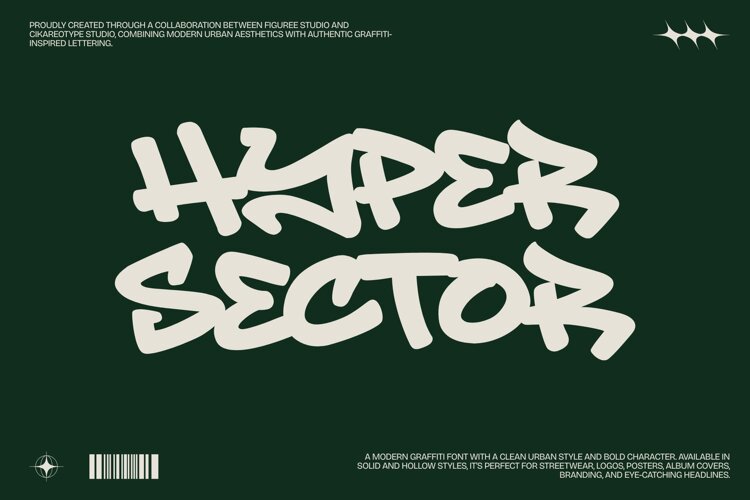
Hyper Sector is a modern graffiti display font created with a bold urban attitude and expressive hand-drawn lettering. Featuring smooth, connected strokes, dynamic curves, and an authentic street-art character, this typeface brings a confident and contemporary energy to your designs.
Inspired by modern graffiti, street culture, streetwear, underground art, and urban branding, Hyper Sector is designed to make headlines and visual identities instantly stand out. Its fluid letterforms create a strong handcrafted appearance while maintaining a clean enough structure for versatile graphic design applications.
Hyper Sector comes with Solid and Hollow styles, giving you creative flexibility when building logos, layered typography, posters, apparel graphics, album artwork, and promotional designs. Combine the two styles to create contrast, depth, and unique typographic compositions.
This font is perfect for streetwear brands, logos, posters, album covers, music artwork, clothing designs, stickers, packaging, social media graphics, event promotions, skate graphics, and bold editorial headlines.
The expressive shapes work especially well as large display typography, allowing the lettering itself to become a major visual element in your composition. Whether you're developing an urban brand identity or creating eye-catching merchandise, Hyper Sector delivers a distinctive graffiti-inspired personality.